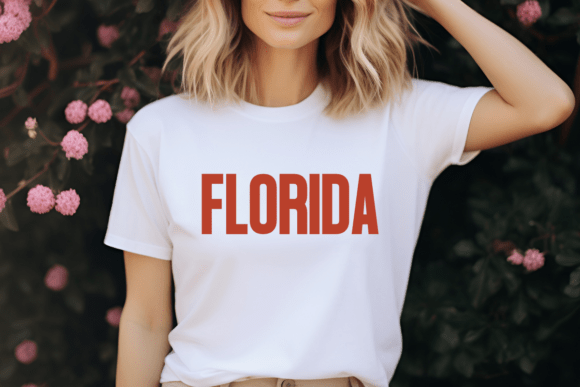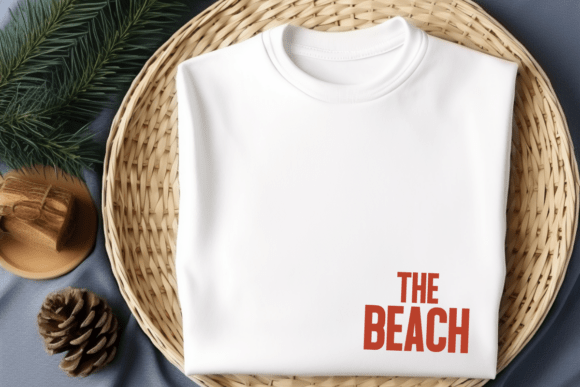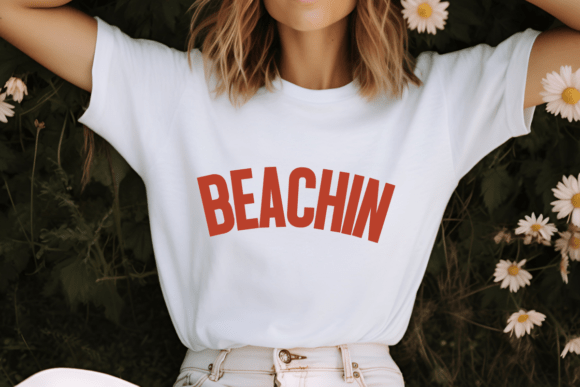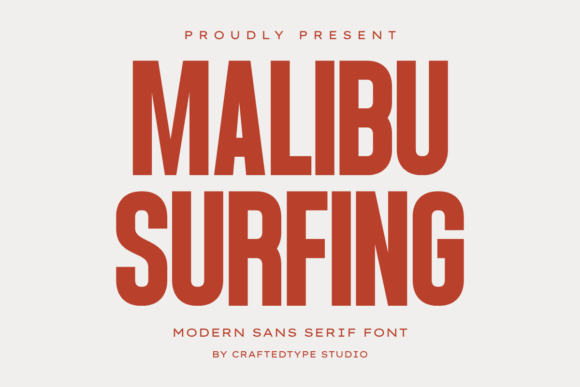
Introduction to Malibu Surfing Font
Malibu Surfing is a modern sans serif font designed for creators who value clean aesthetics and strong visual impact.
With its tall, narrow letterforms and impactful geometric construction, this font is perfect for Print On Demand projects like hoodies, t-shirts, and posters, as well as for lifestyle branding, adventurous logos, and contemporary packaging Its sturdy and versatile style fits both professional and energetic designs, making it ideal for summer-themed projects, coastal branding, minimalist titles, or bold advertising visuals.
Malibu Surfing Font offers exceptional quality and versatility, making it a valuable addition to your design toolkit. Whether you’re creating for personal projects or commercial use, Malibu Surfing Font delivers professional results.